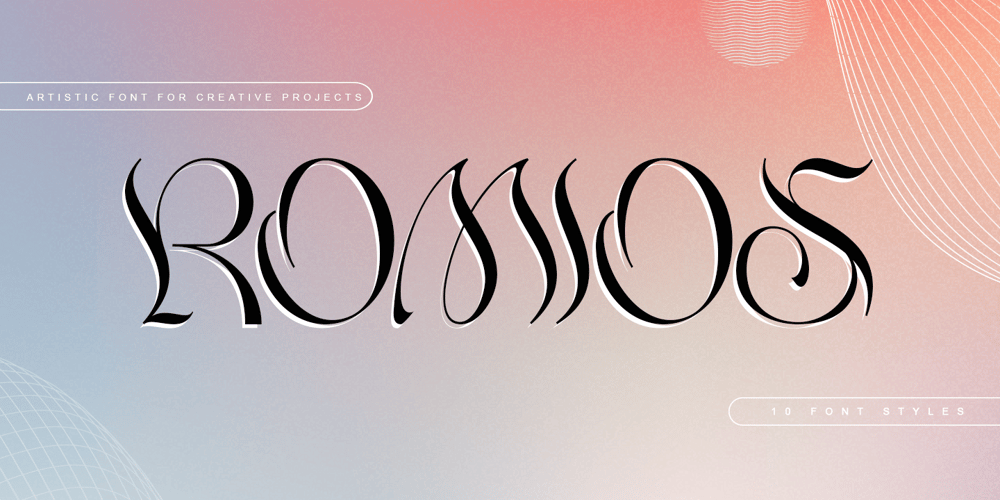
Romios Font Family was designed by Thomas Aradea and published by Letterara. Romios contains 10 styles and family package options. Introducing “Romios”, a modern serif and elegant font family with 10 unique styles. Each style features distinctive serifs and clean lines, resulting in a modern yet classic look. This font family is perfect for any project that requires a touch of sophistication, from editorial design to branding and advertising. The versatility of Romios font makes it an excellent choice for both digital and print media. With its PUA encoding, accessing the various glyphs and swashes is a breeze. Each style is carefully crafted to ensure legibility, making it an excellent choice for international audiences. Make your designs stand out with Romios font – the perfect balance of modern and classic typography.